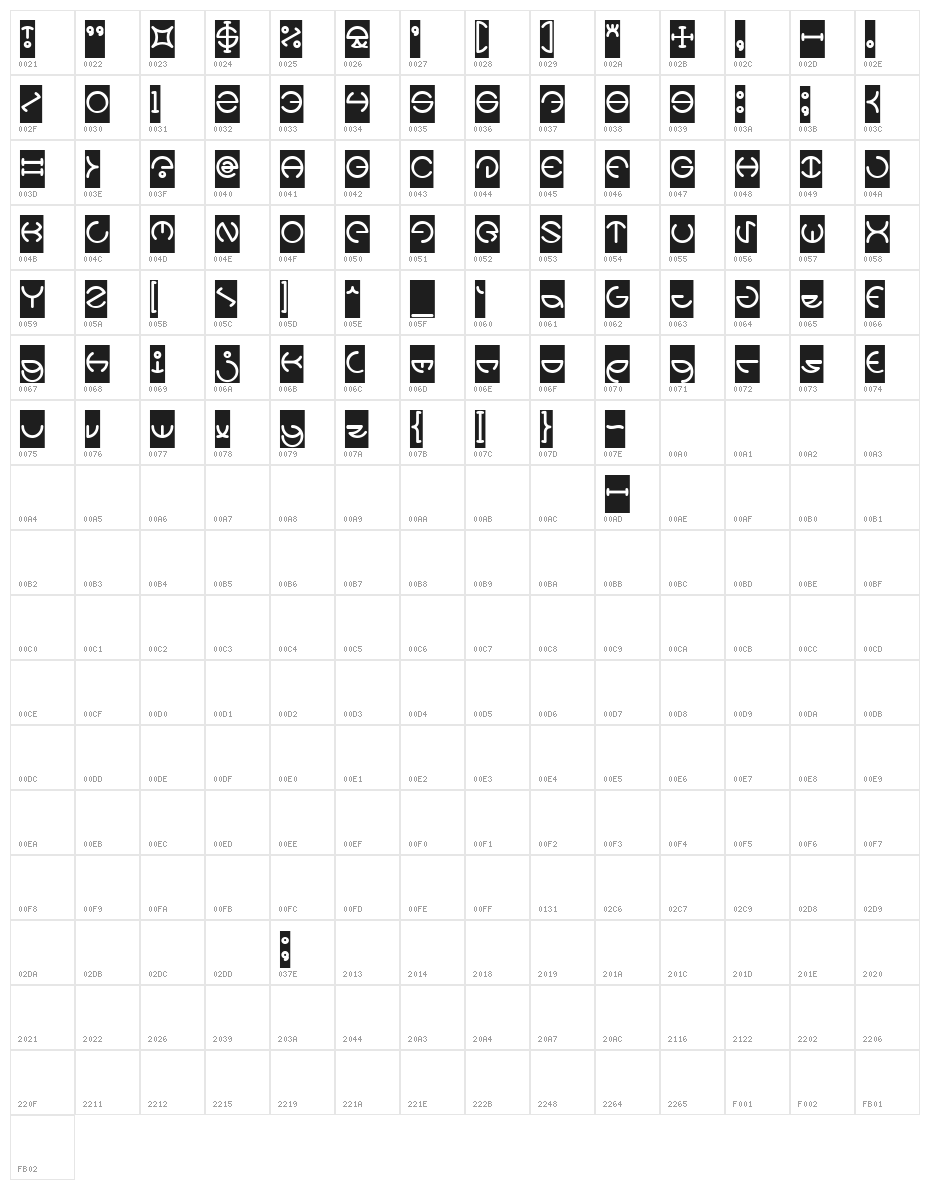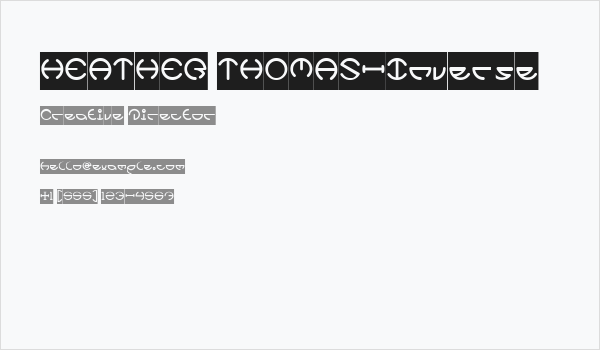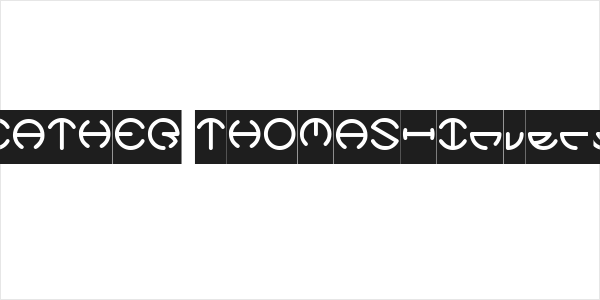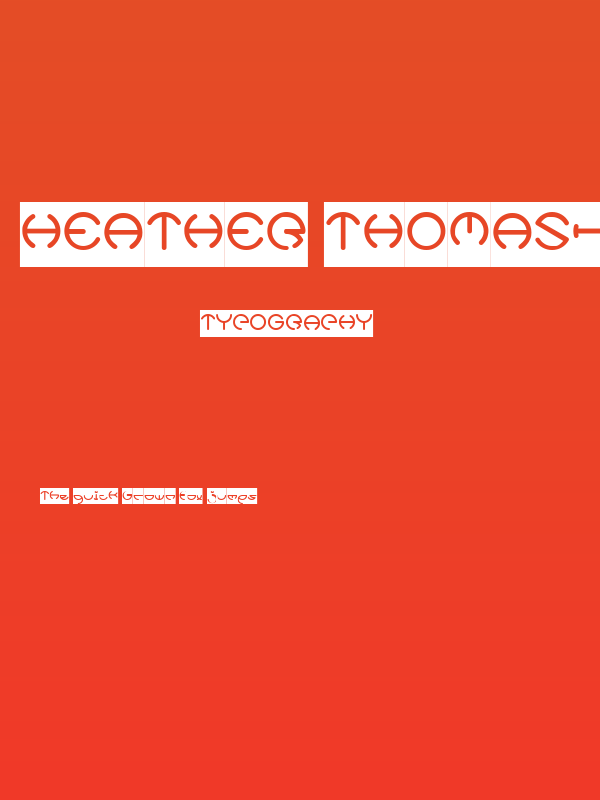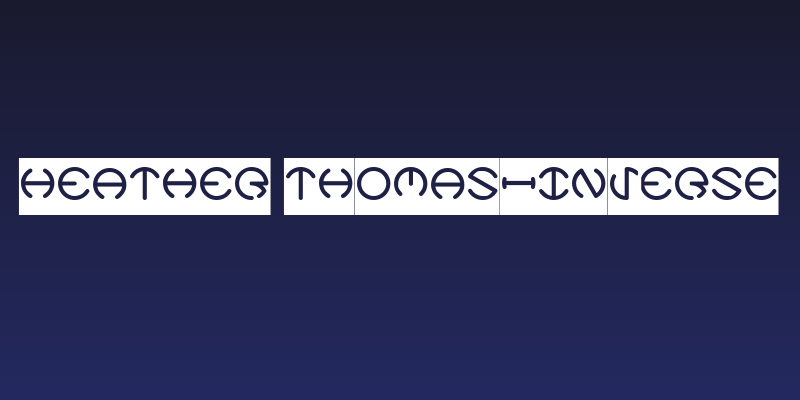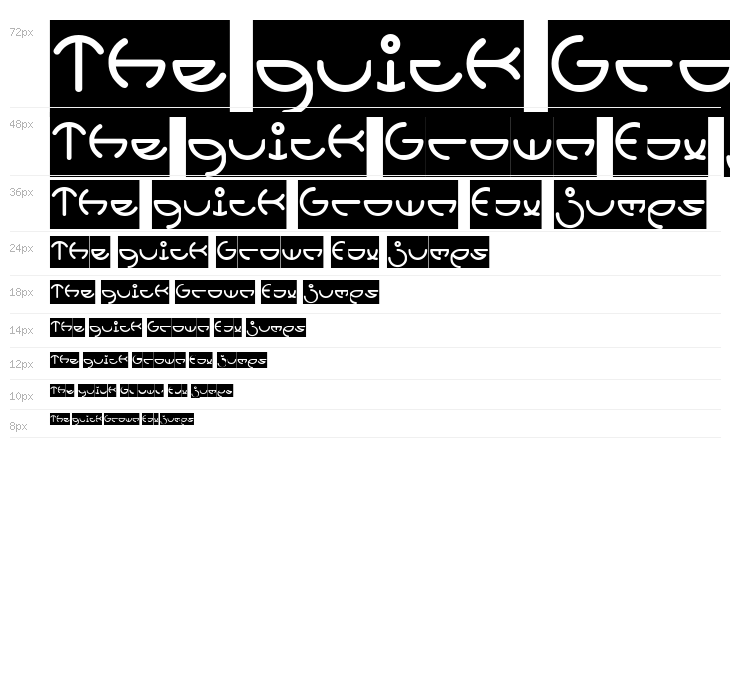
HEATHER THOMAS-Inverse Font
HEATHER THOMAS-Inverse Description
This font features a unique and artistic design with a futuristic and abstract aesthetic. The characters are composed of smooth, curved lines and geometric shapes, creating a sense of movement and fluidity. The uppercase and lowercase letters share a consistent style, with some letters incorporating circular elements and others featuring angular cuts. The numbers and special characters maintain this cohesive design, making the font versatile for creative projects. Its distinct appearance makes it suitable for eye-catching designs, where a modern and unconventional look is desired.
| Proposed Projects | Ideal for sci-fi themed designs, modern art posters, digital artwork, and branding for tech companies. |